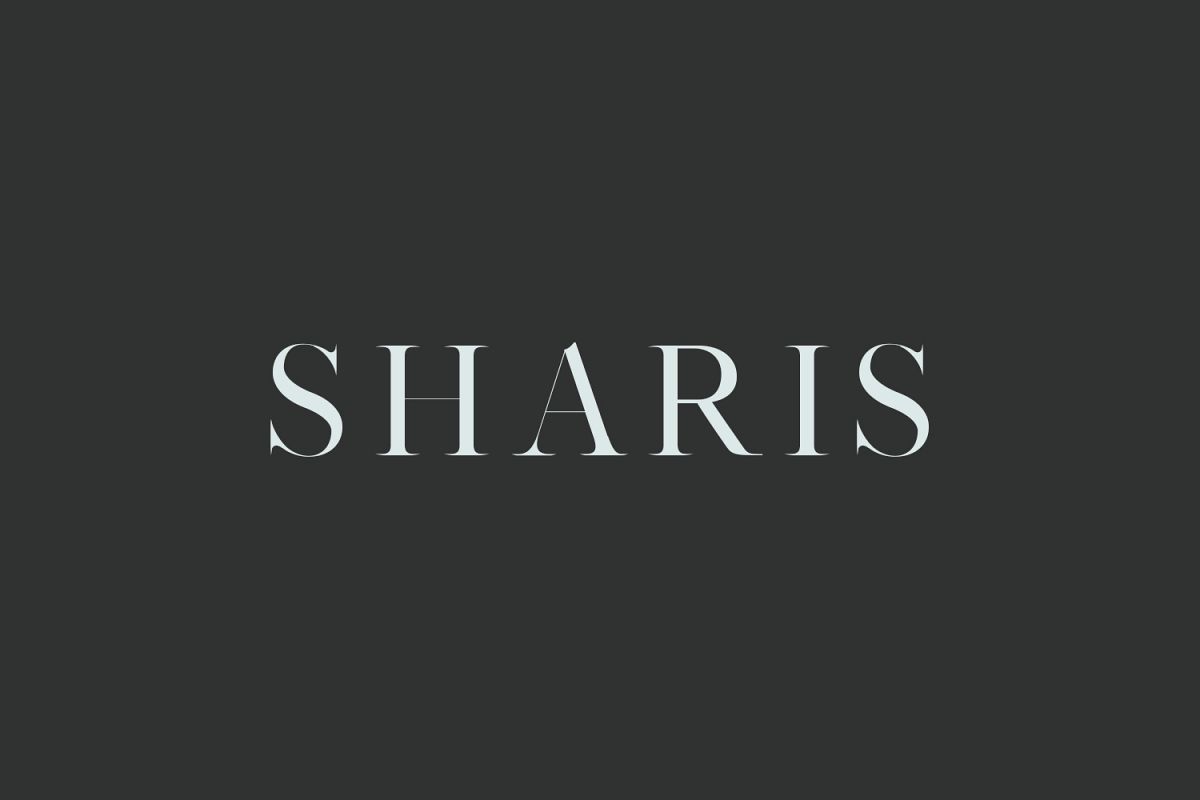
Sharis Serif Typeface
Sharis Serif Typeface is a unique simple and clean serif font family, which contains 7 weights and Sharis features unique and modern serif look and feel.It is perfect for gorgeous logos, titles, web layouts, fashion magazine and branding.It looks gorgeous in all caps with a wide-set spacing if you want to try a classy look, or beautiful on its own in capital and lowercase letters for something completely timeless.Included Features:
• Font Weight: Regular, Light, Thin, Medium, Distorted, Bold and Black
• Extras: Uppercase Multilingual Letters, Lowercase Multilingual Letters, Numbers & Punctuation + Alternatives.